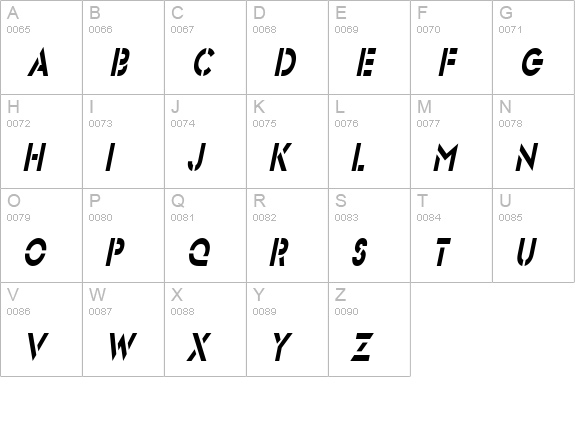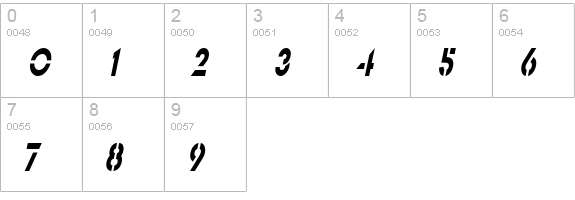
Templett Condensed Italic is a distinctive, condensed-width, italic variant in the Templett typeface family \xE2\x80\x94 well suited to design and typography projects.
Templett Condensed Italic font is a sleek and stylish typeface that effortlessly combines elegance with a modern twist. This font is perfect for adding a touch of sophistication to any design project, whether it be for print or digital media. With its condensed form and italicized slant, Templett Condensed Italic exudes a sense of professionalism and refinement. Its clean lines and sharp angles make it highly versatile, allowing it to be used in a variety of contexts, from headings and titles to body text and captions. One of the best things about Templett Condensed Italic font is that it is available for free download at FontsMarket.com. This means that you can easily and conveniently add this beautiful font to your collection without any cost. Whether you are a professional designer or a hobbyist, having access to high-quality fonts like Templett Condensed Italic can greatly enhance your creative projects. Thanks to its freely available nature, Templett Condensed Italic font is accessible to a wide range of users, allowing anyone to create stunning designs that stand out. Whether you are working on a personal project or collaborating with a team, this font will surely elevate your work to the next level. In conclusion, Templett Condensed Italic font is a must-have for anyone looking to add a touch of elegance and sophistication to their designs. With its sleek and modern design, this font is perfect for a wide range of applications. And the best part? It is available for free download at FontsMarket.com, making it easily accessible to all. So why wait? Download Templett Condensed Italic font today and start creating stunning designs that leave a lasting impression.